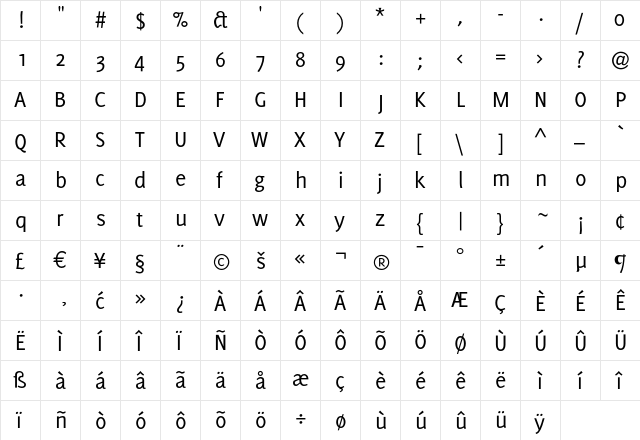
Delicious Roman
Design Context for Delicious Typeface
Delicious is a composed and adaptable typeface that performs quietly and consistently across a wide range of design contexts.
Pro Tip: Pair Delicious with a font of contrasting weight or personality to build a more expressive typographic hierarchy.